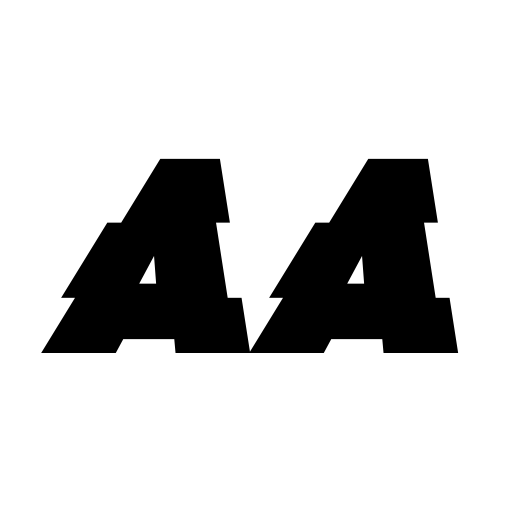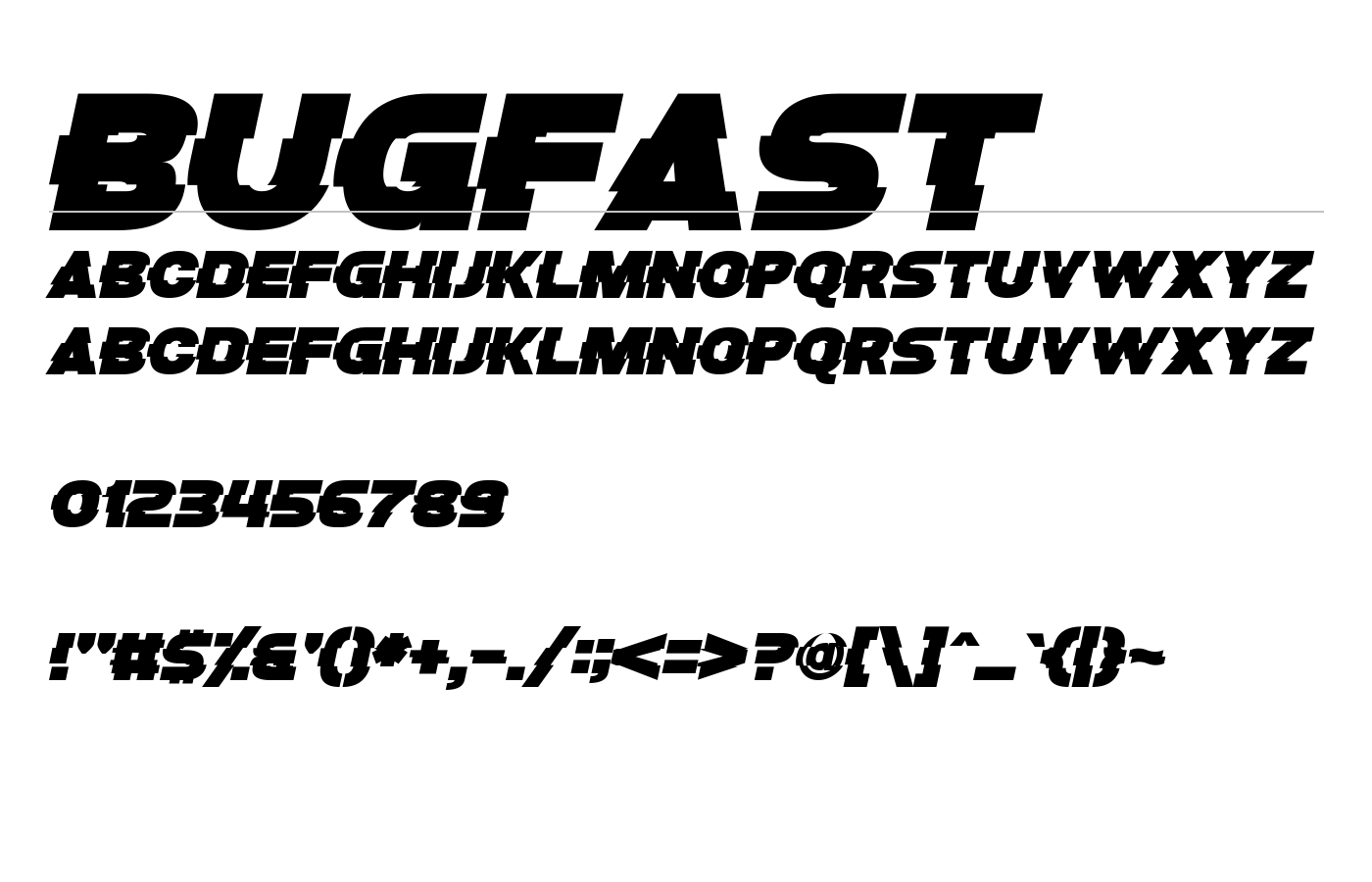
Bugfast is a bold, condensed sans serif font with a dynamic italic slant, designed to convey speed and energy. Its strong, heavy strokes and tight letter spacing create a powerful, modern feel that is perfect for branding, sports, and high-impact headlines. This font stands out in contexts where a sense of motion and urgency is essential.
Bugfast Font
About Bugfast Font